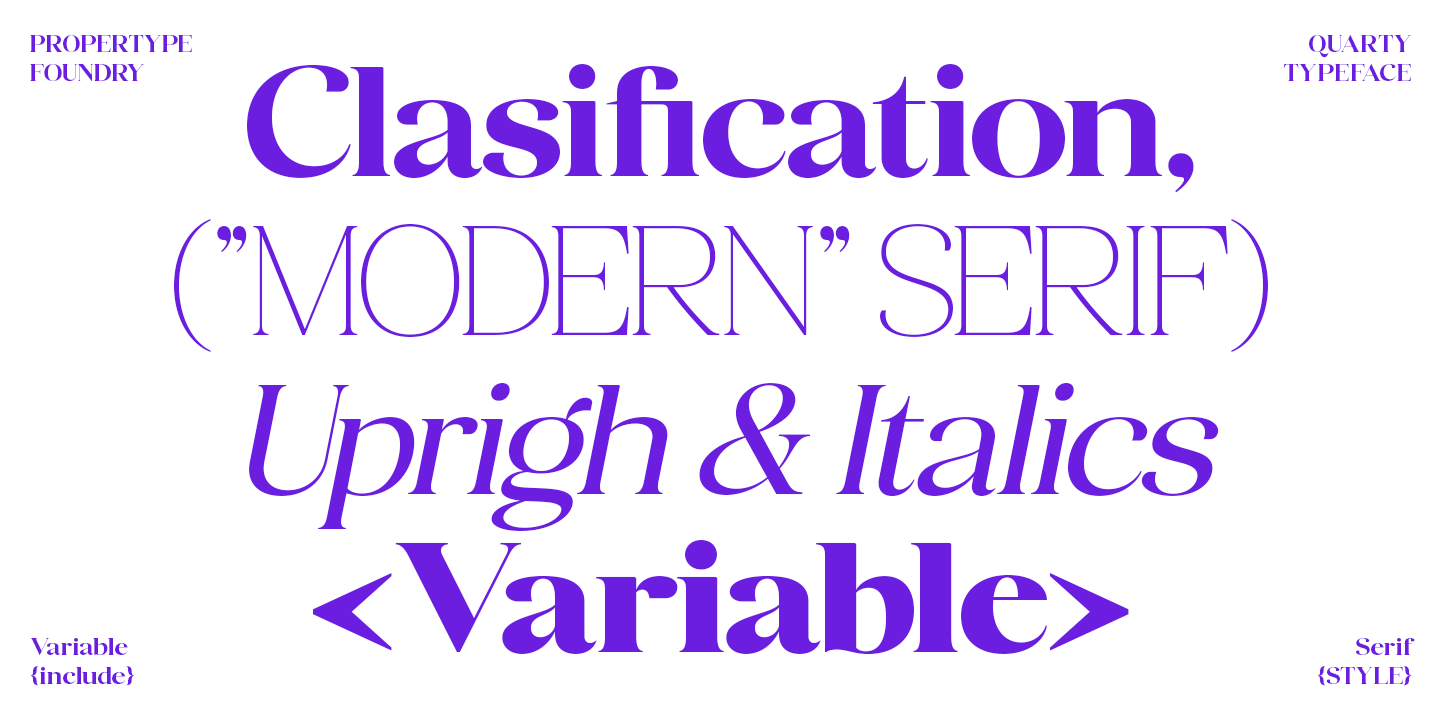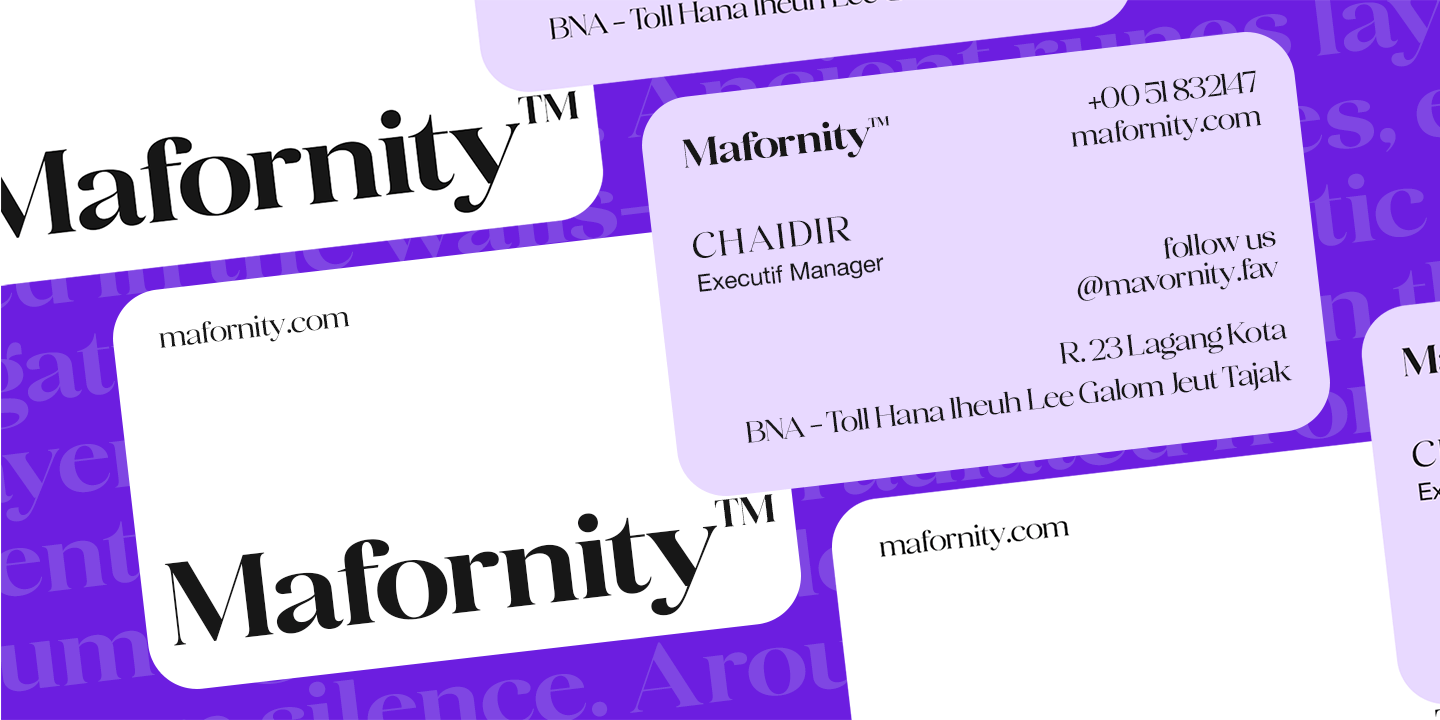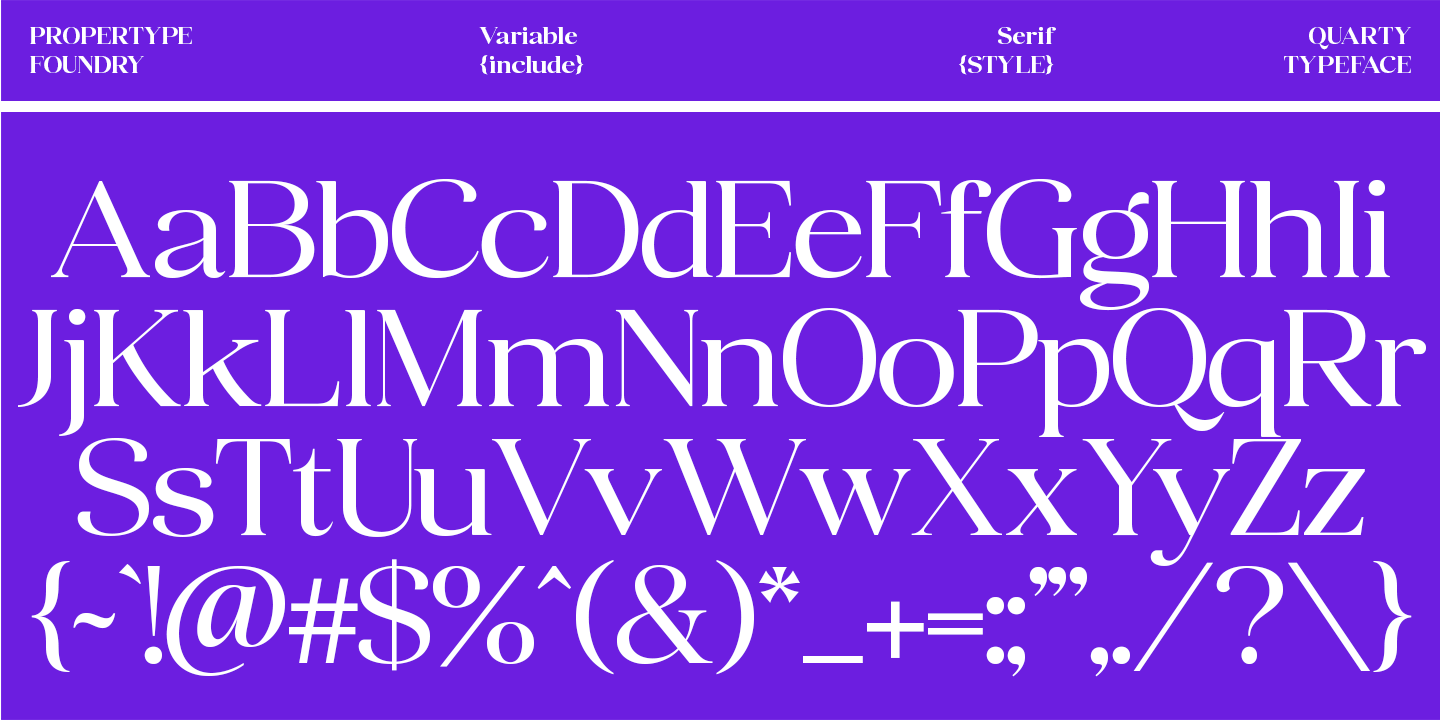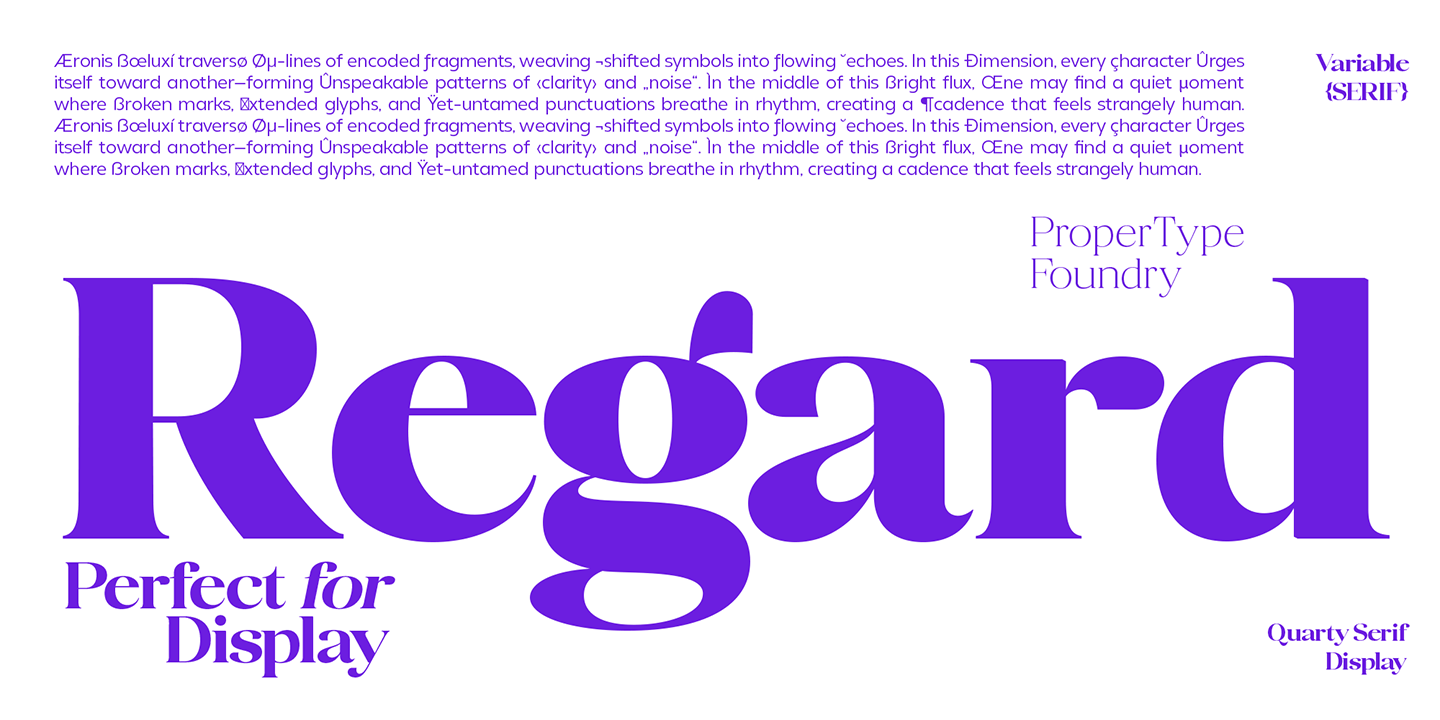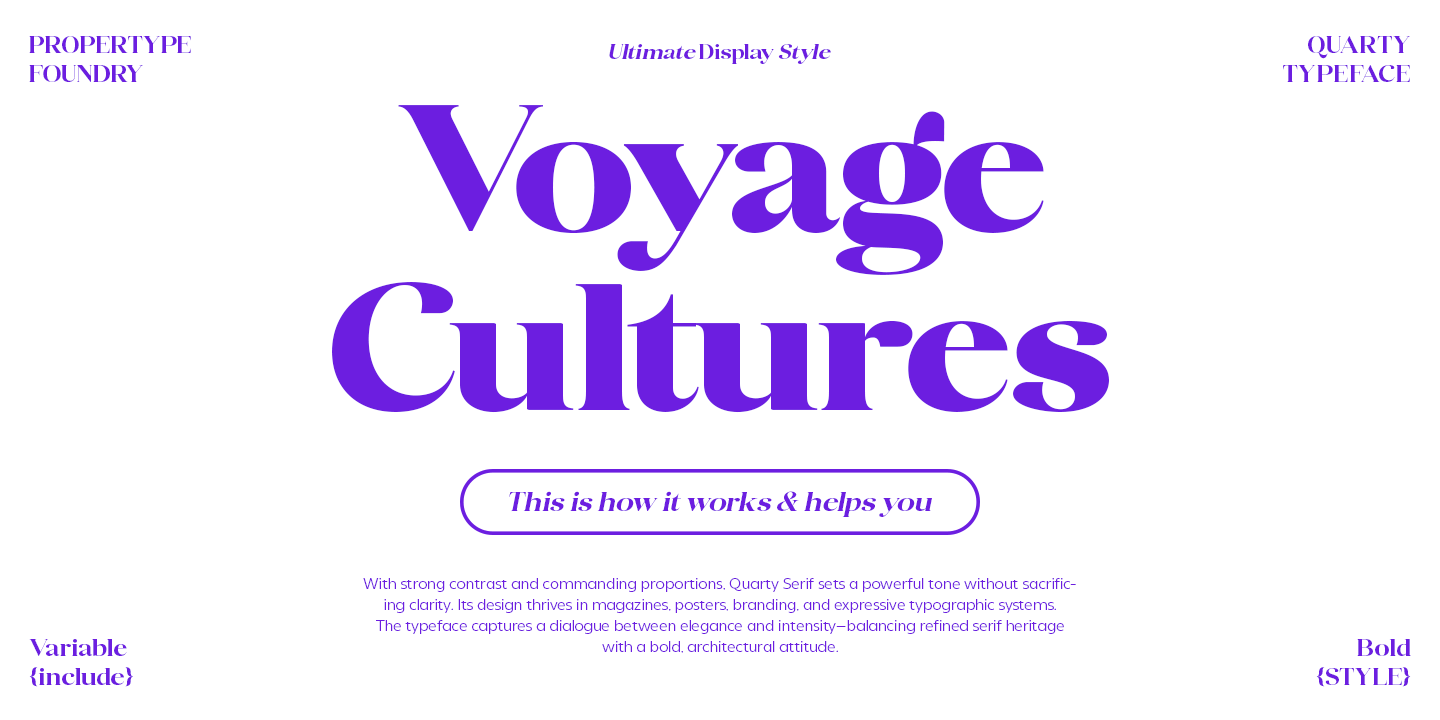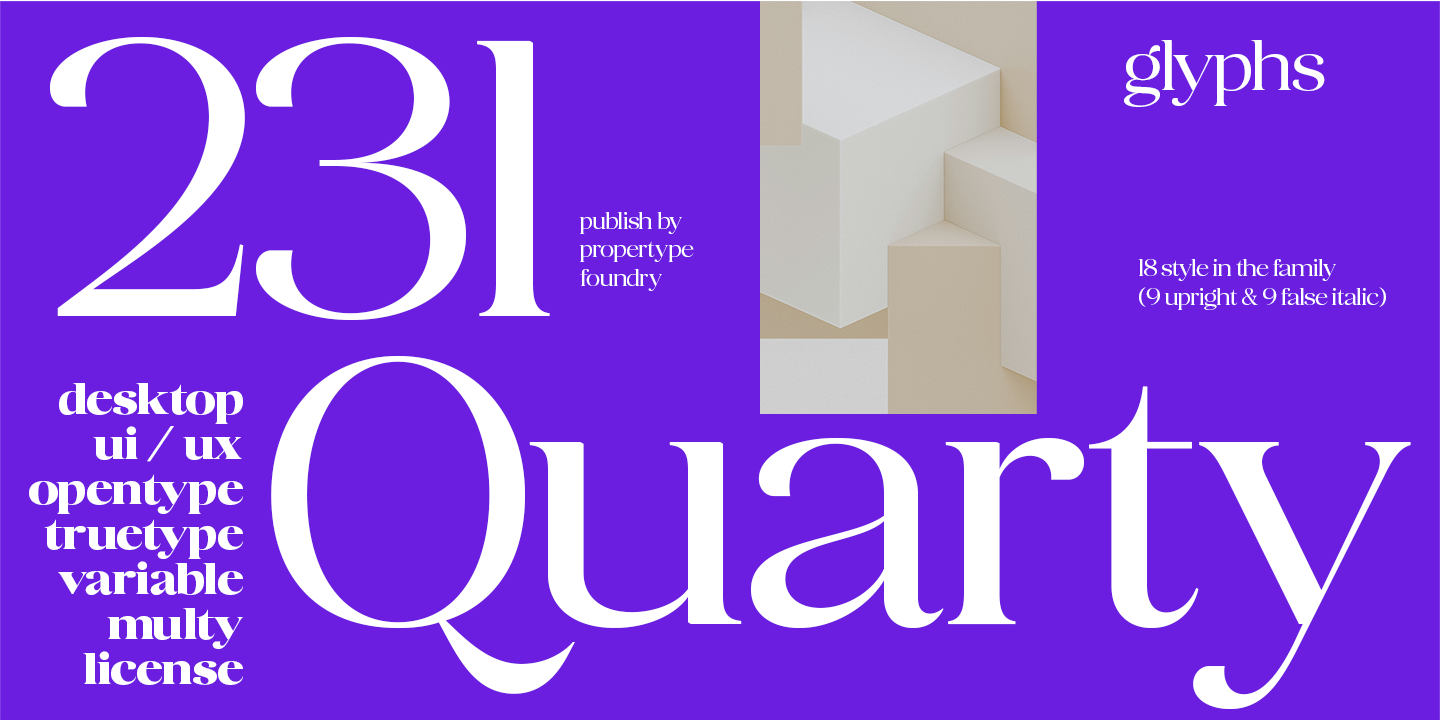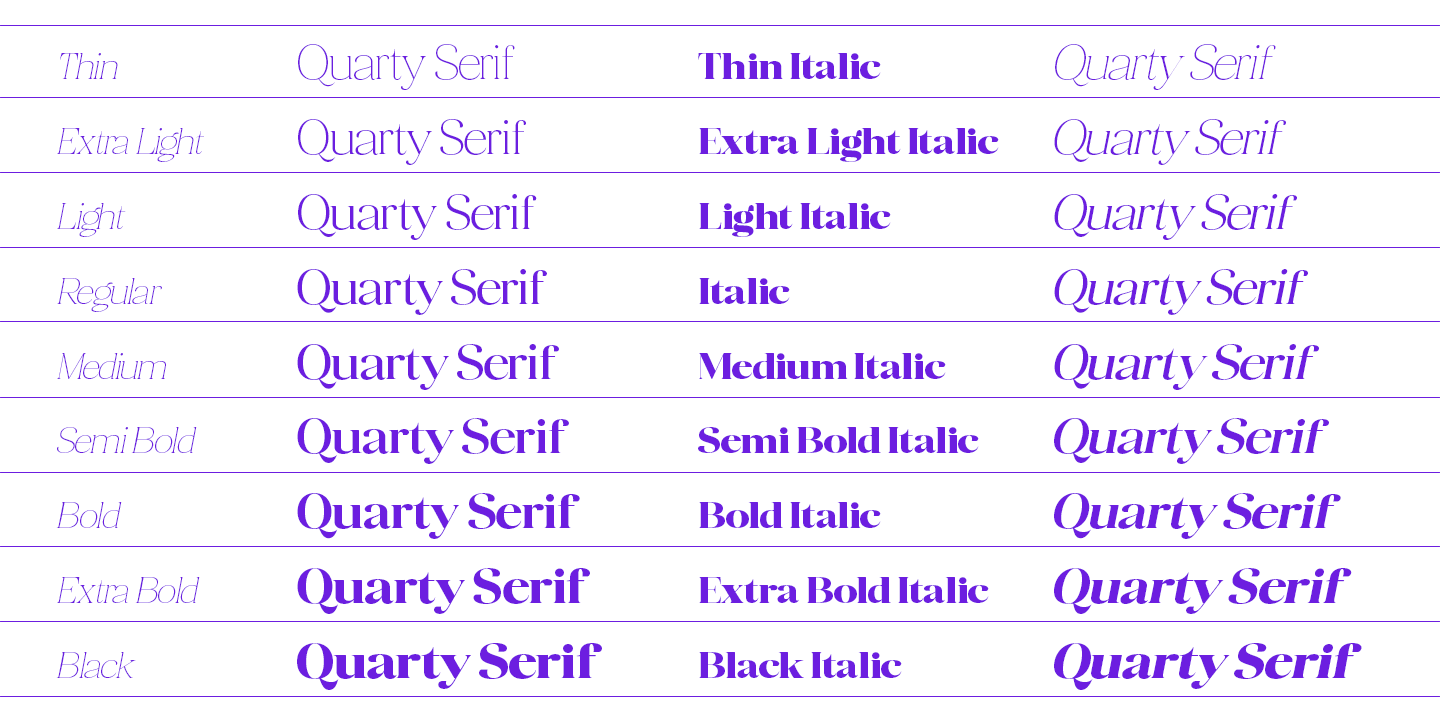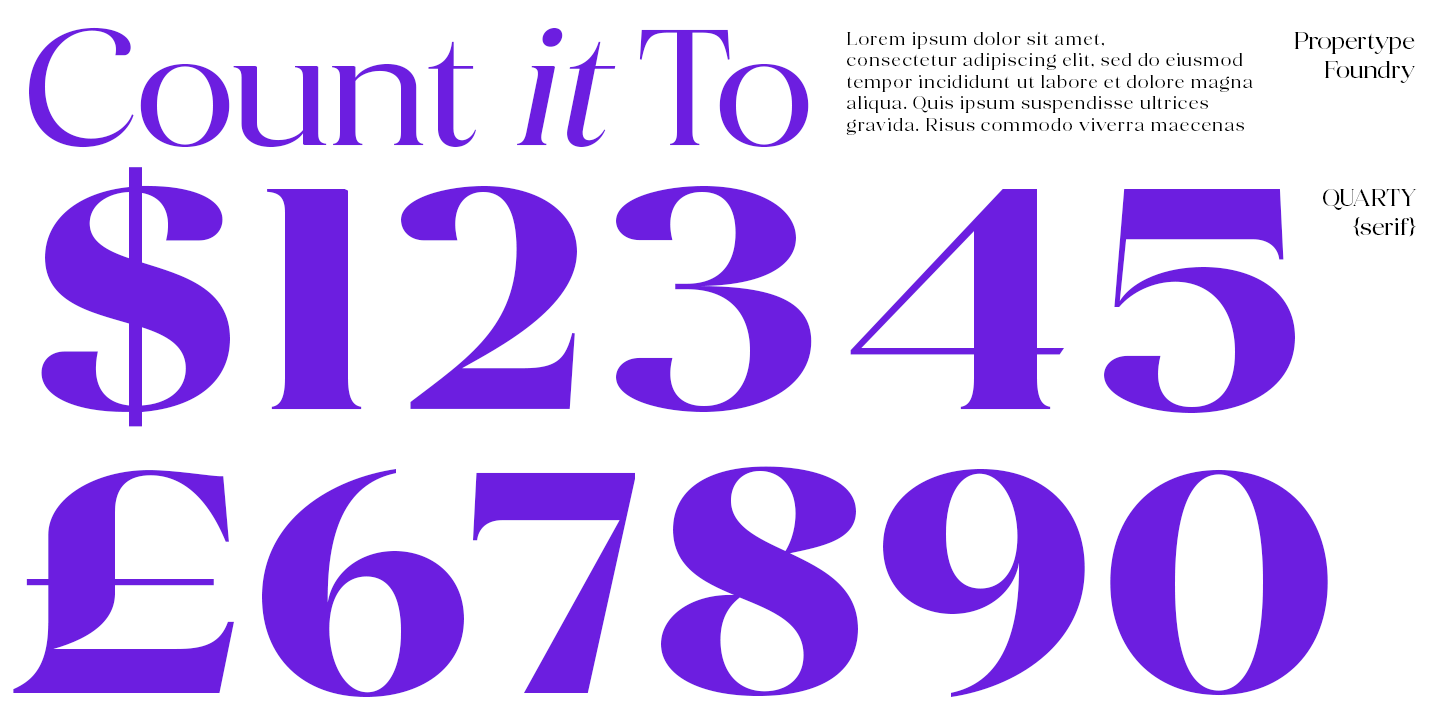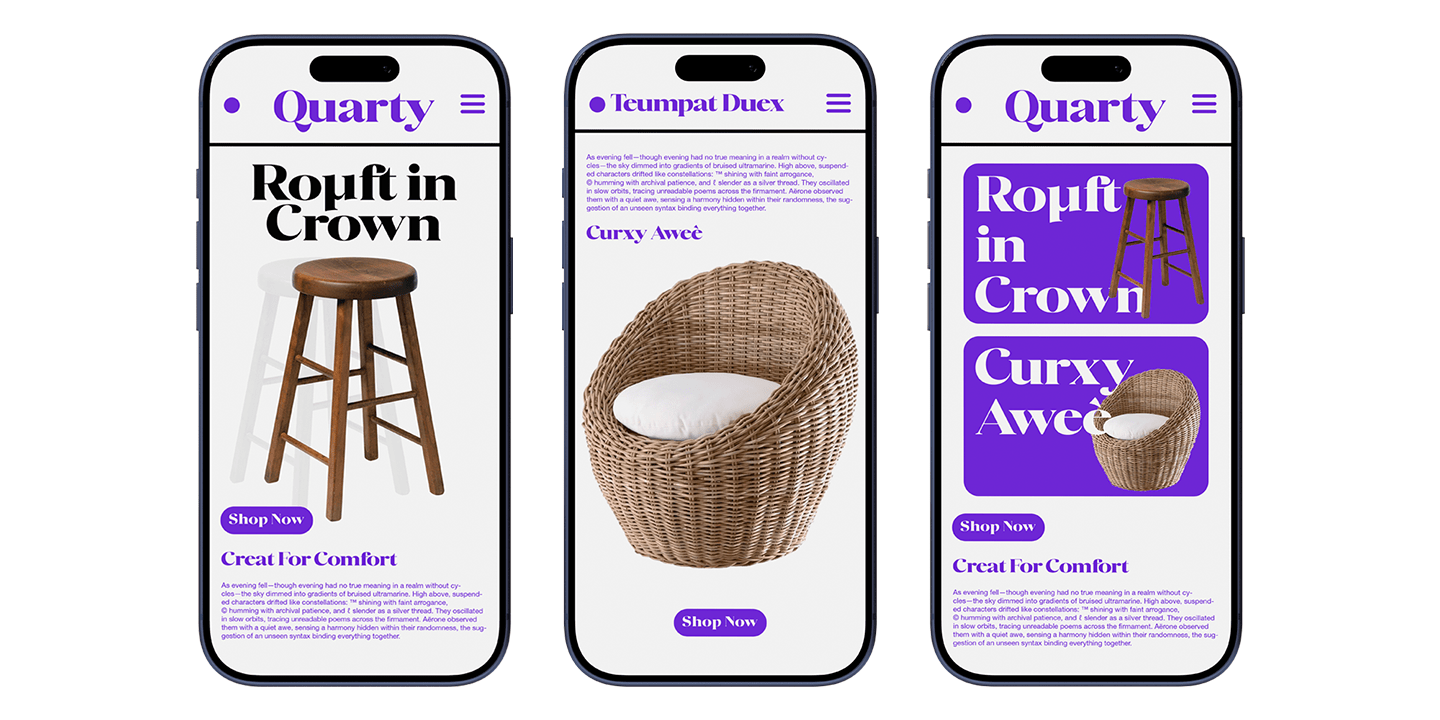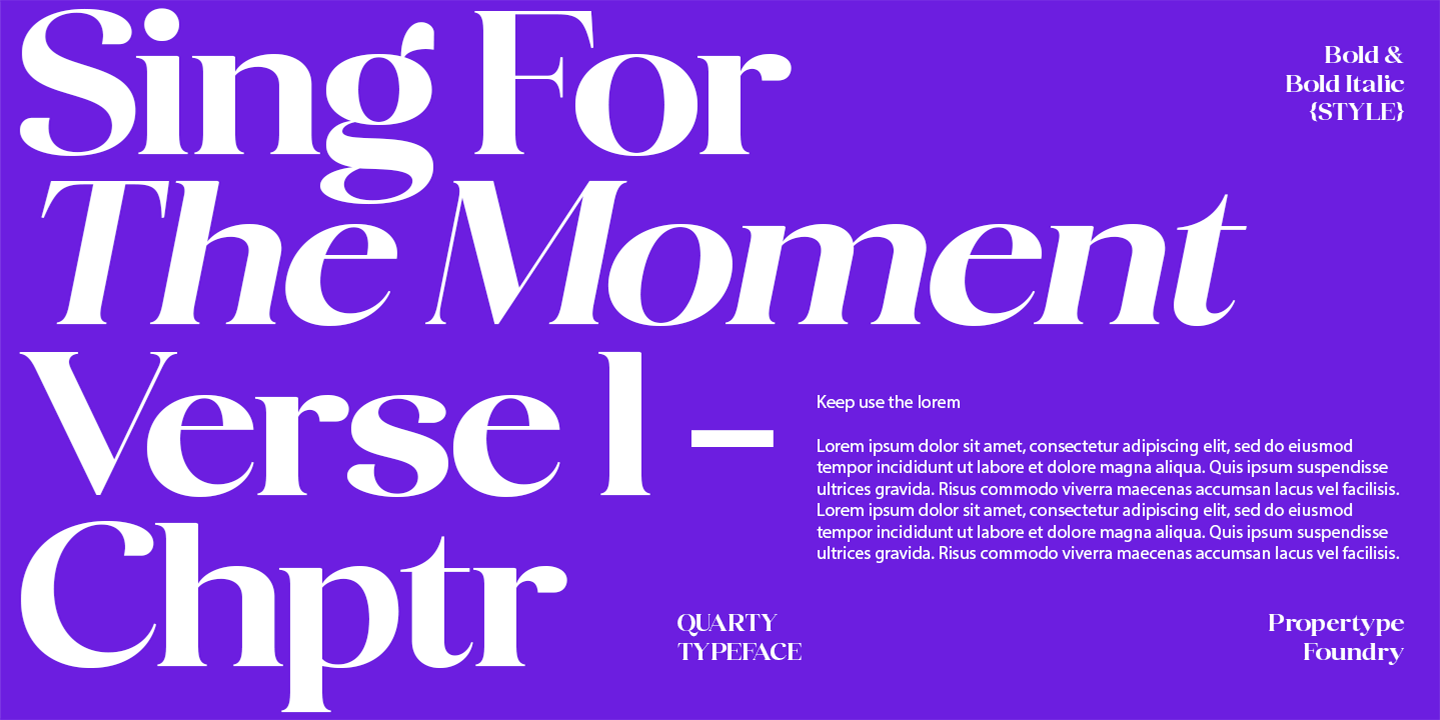
Quarty Serif
Introducing Quarty Serif, a highly refined serif font that exudes an aura of elegance. Quarty's uniqueness lies in the harmonious blend of geometric shapes and graceful curved elements, resulting in a font with a singular and unique character. Embrace the sophistication of Quarty for all your typographic needs. Available in nine weights, from thin to extra bold, this font features a Latin-based language, OpenType features, including ligatures and variable fonts.